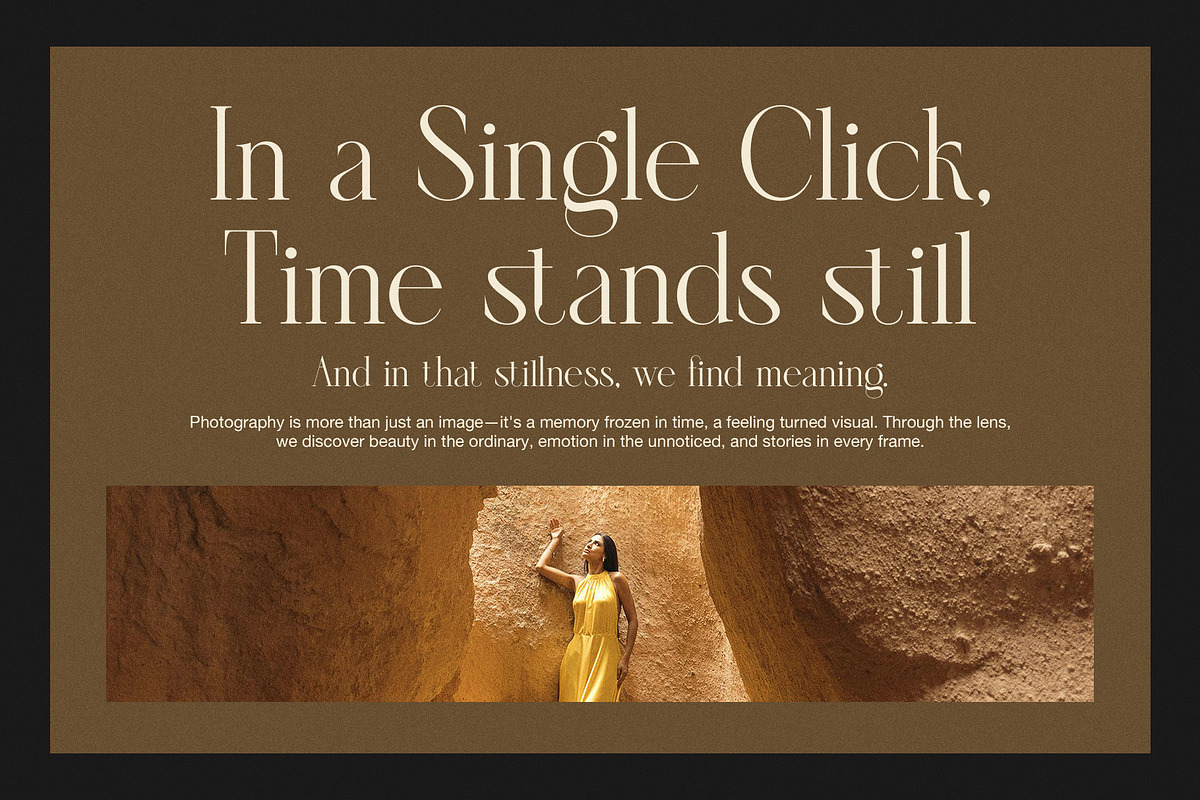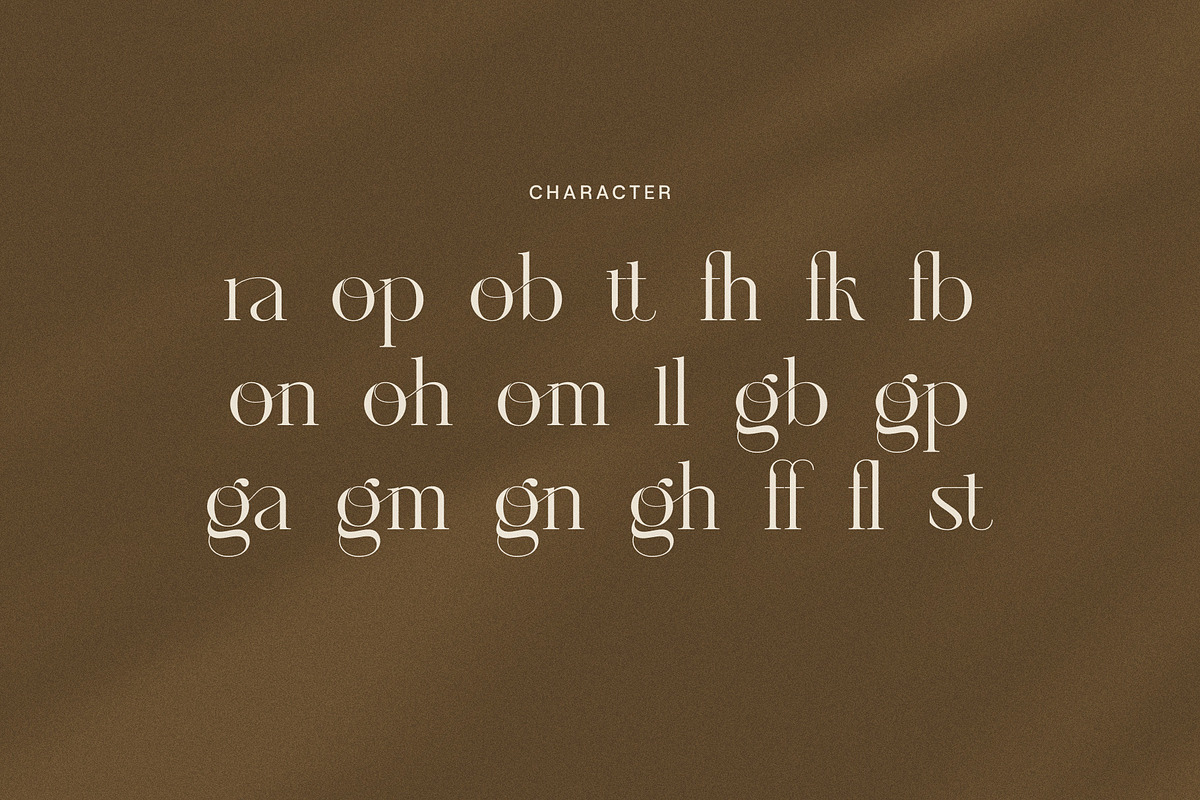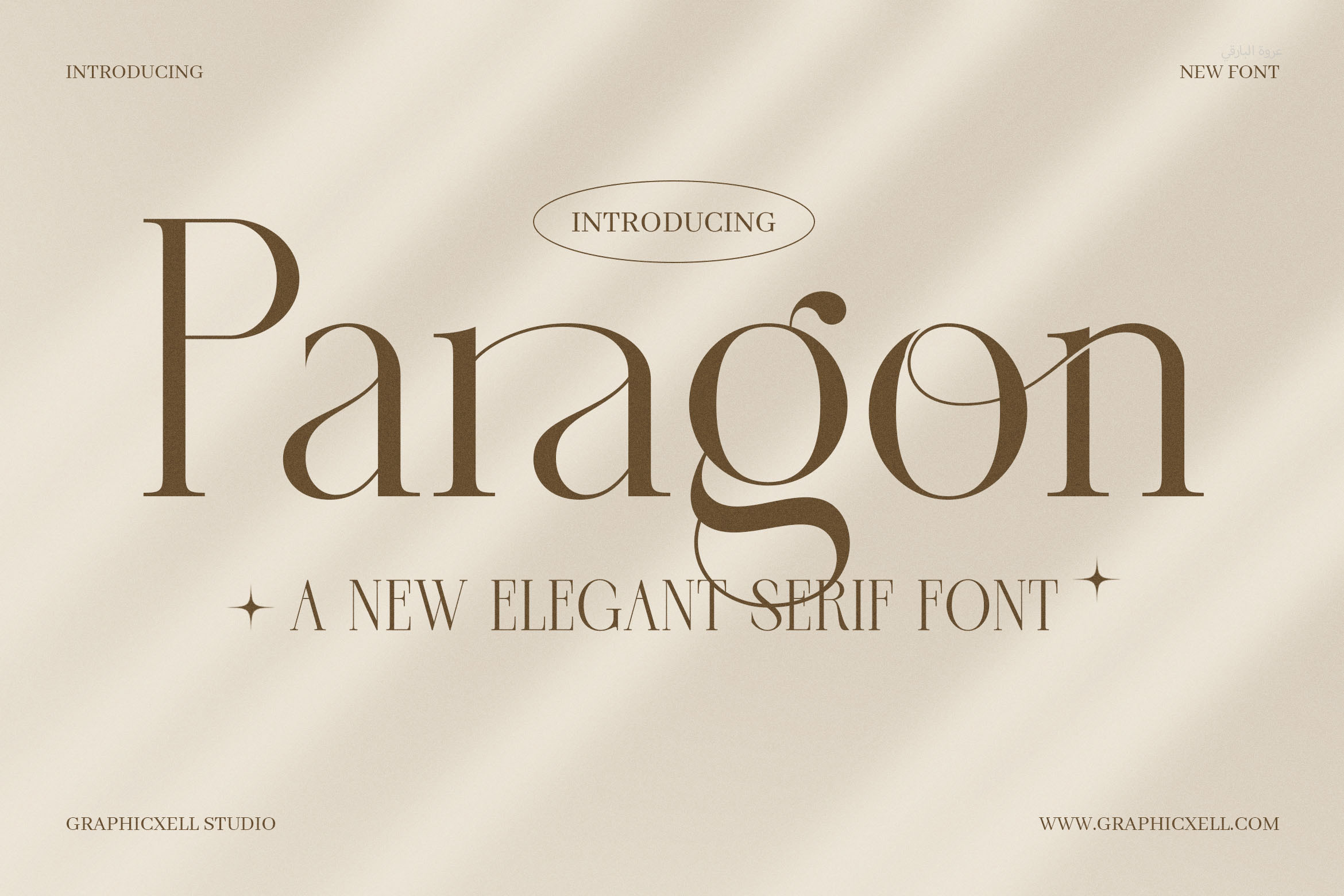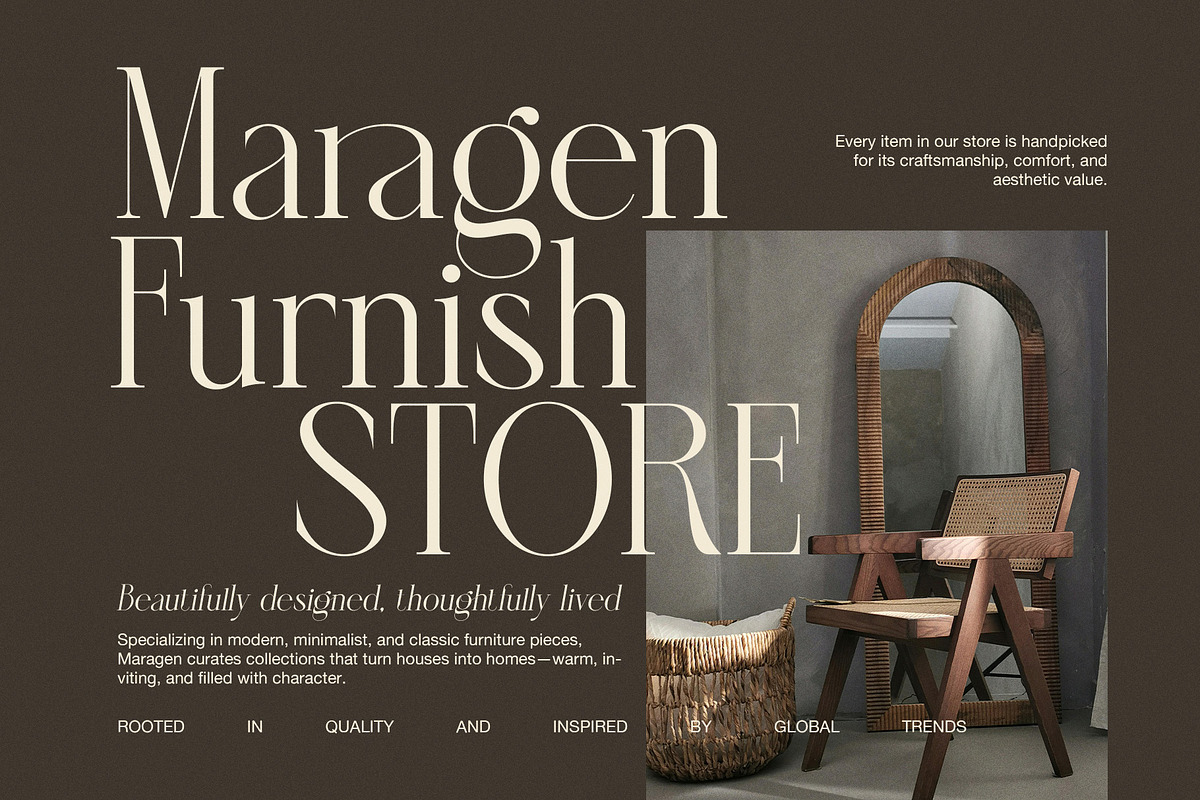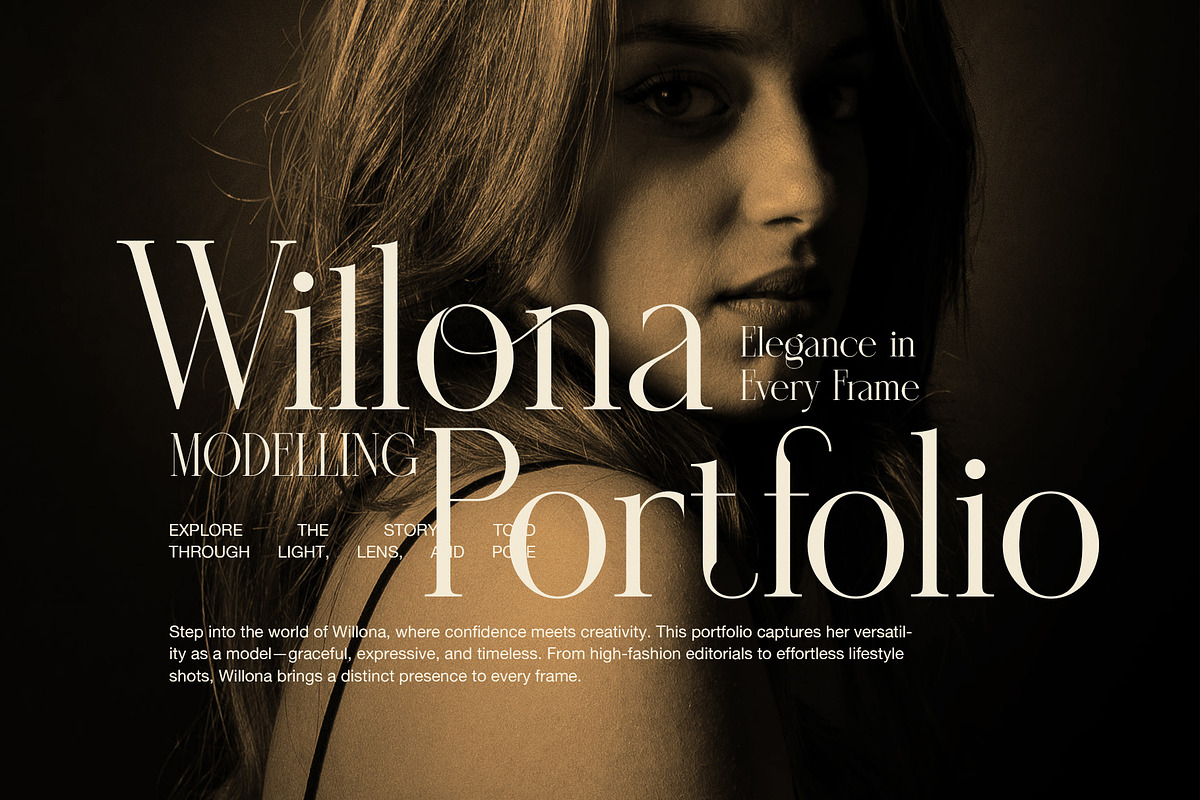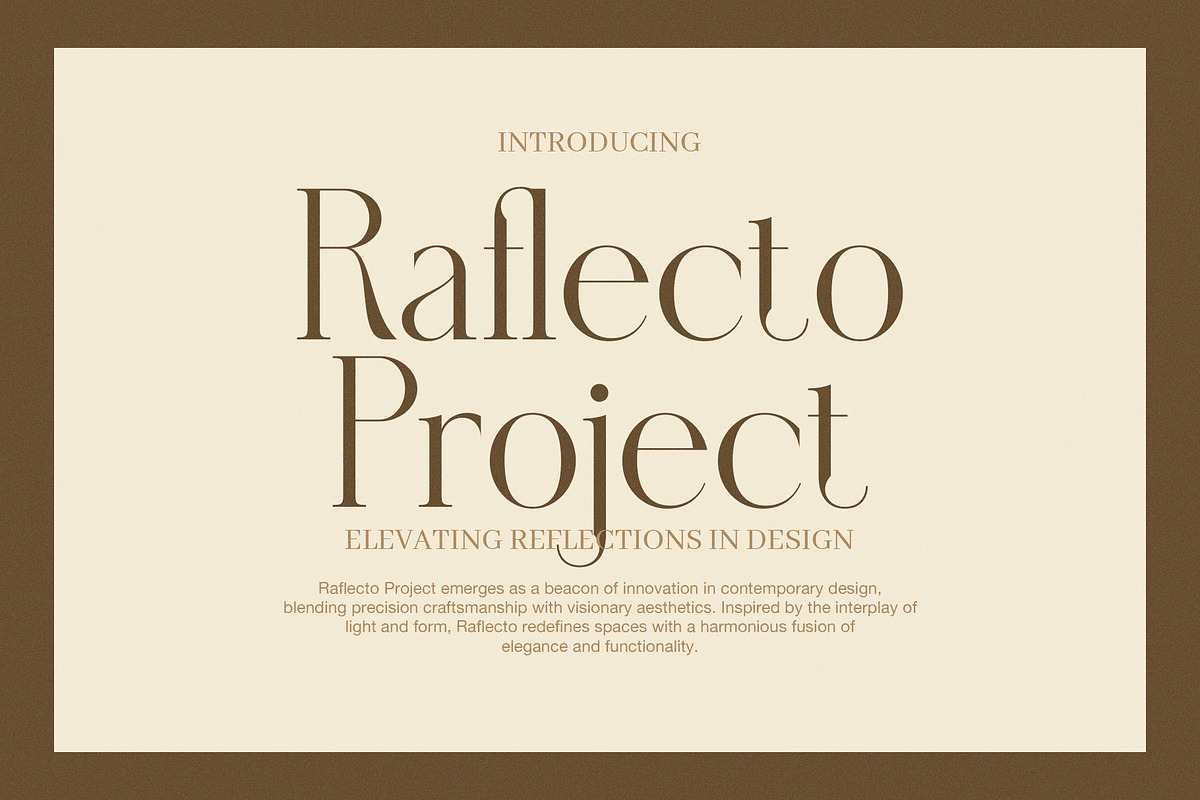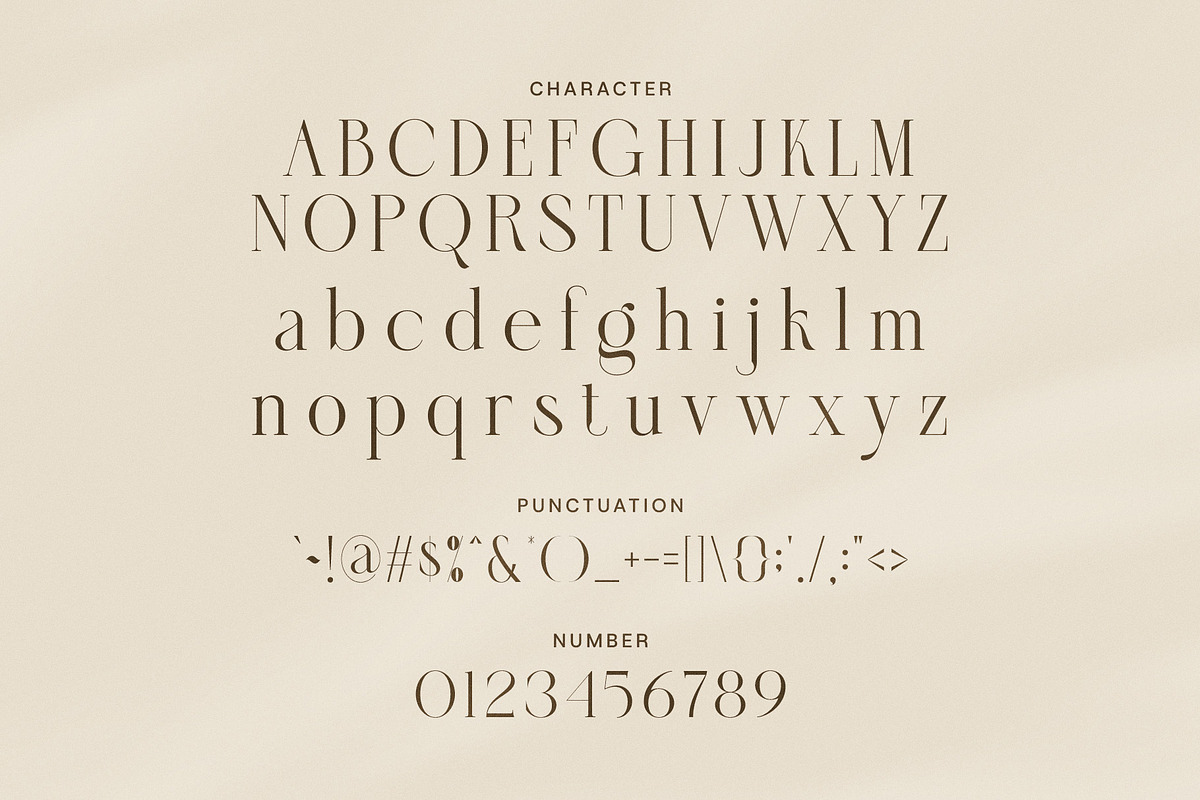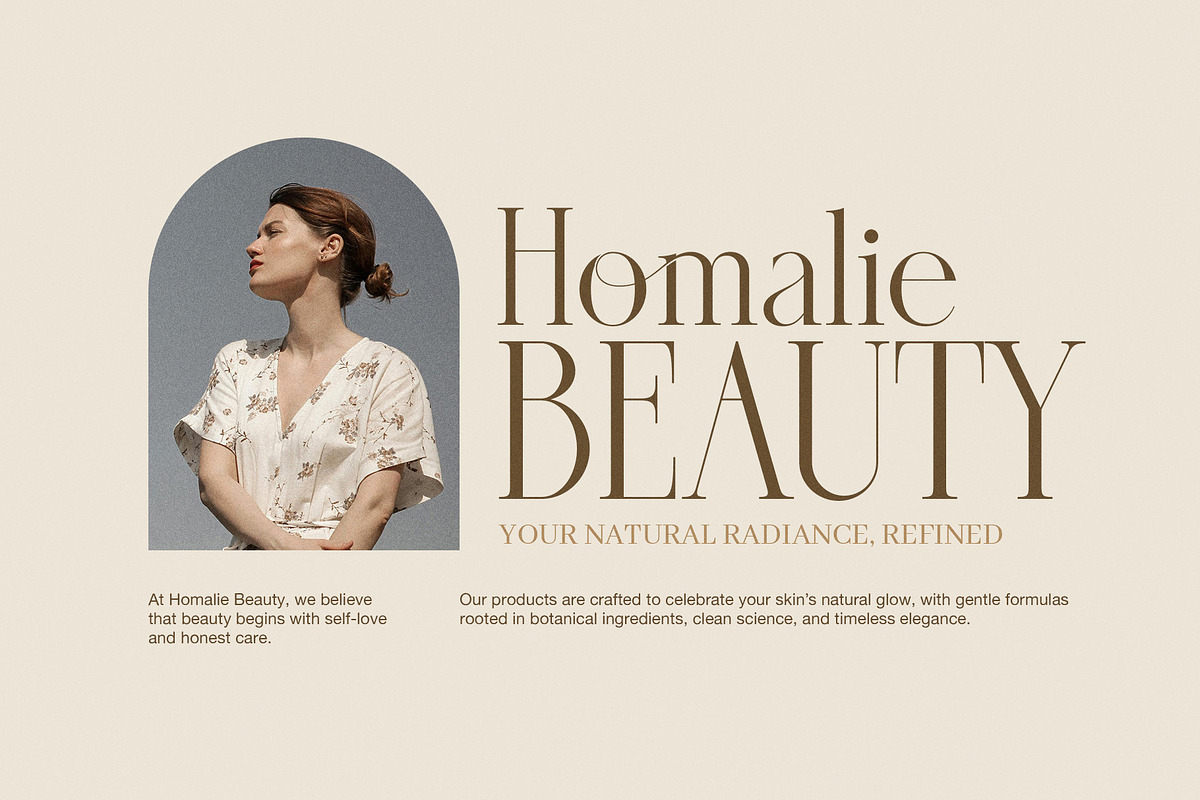
Paragon Elegant Classic Font
Paragon Serif Font delivers a perfect blend of elegance and timeless charm to any creative project. This serif font features clean lines, balanced shapes, and subtle details that give your work a professional and polished look. Whether you design logos, headlines, or body text, Paragon Serif ensures your content remains clear and stylish.
One key strength of this font is its versatility. You can use it easily in print or digital projects. Furthermore, its classic serif design combines tradition with modern simplicity. As a result, your brand or publication will appear trustworthy and refined.
The smooth curves and sharp edges create a bold contrast that captures attention right away. Additionally, Paragon Serif pairs well with sans-serif fonts, helping you craft fresh and modern layouts. Or, you can use it alone to convey a strong and elegant message. This font supports many languages and offers multiple weights, giving you plenty of options to customize your design.
Here are some main features of the Paragon Serif Font:
Elegant serif details that add a classic touch
High readability for headlines and body text alike
Flexible use in both print and digital formats
Multiple font weights to suit different styles
Multilingual support for global projects
If you want a font that brings sophistication and timeless beauty to your work, Paragon Serif is a great choice. It works well for branding, magazines, invitations, and more. This font helps you communicate your message clearly while maintaining a stylish and refined look.